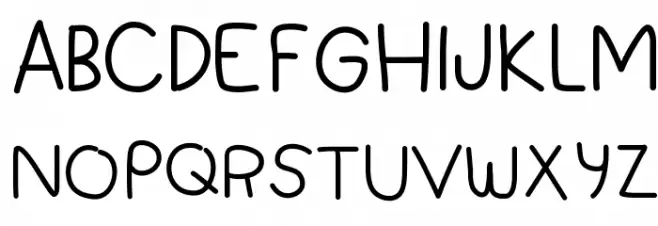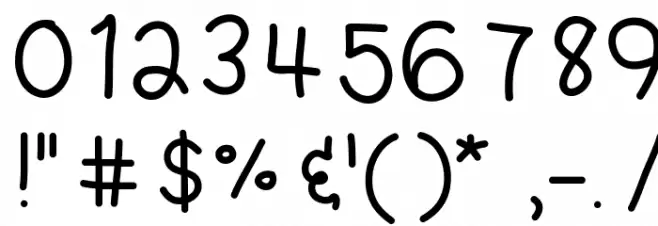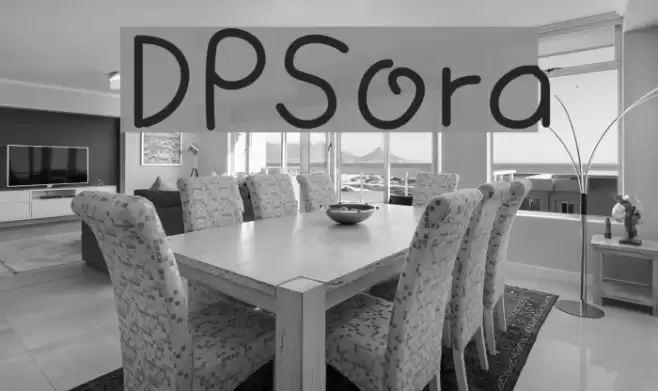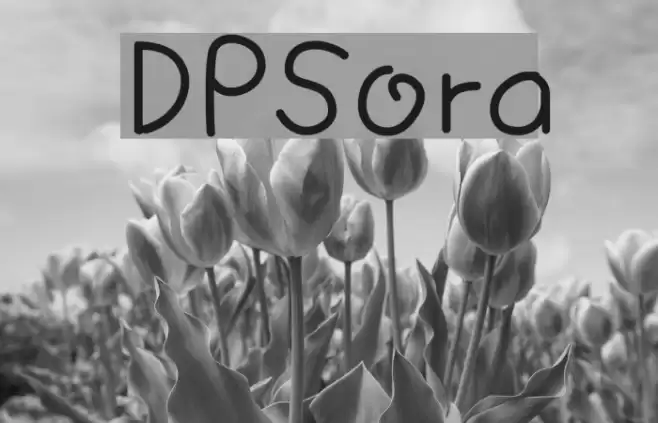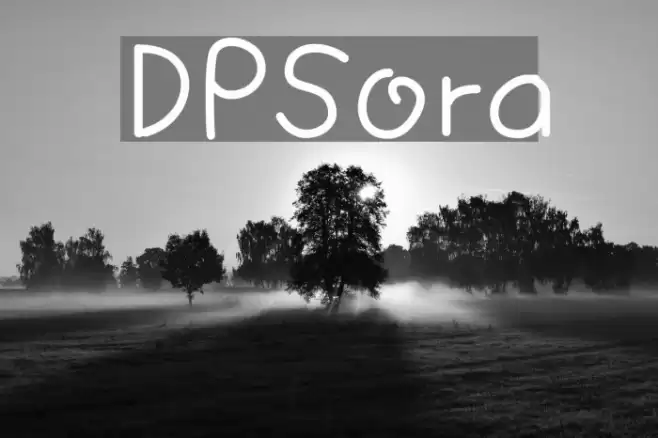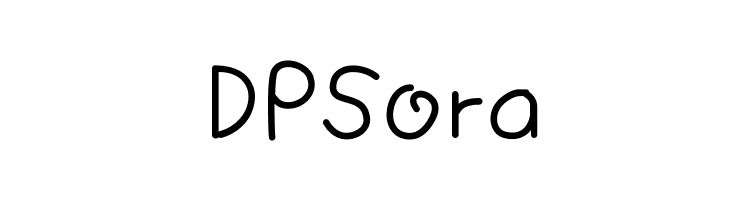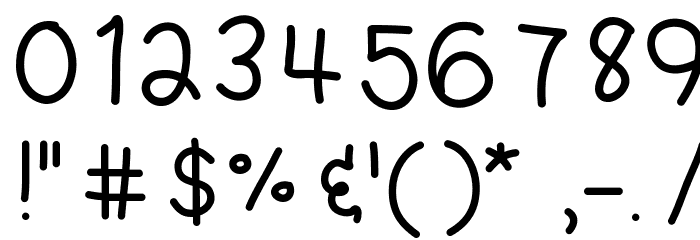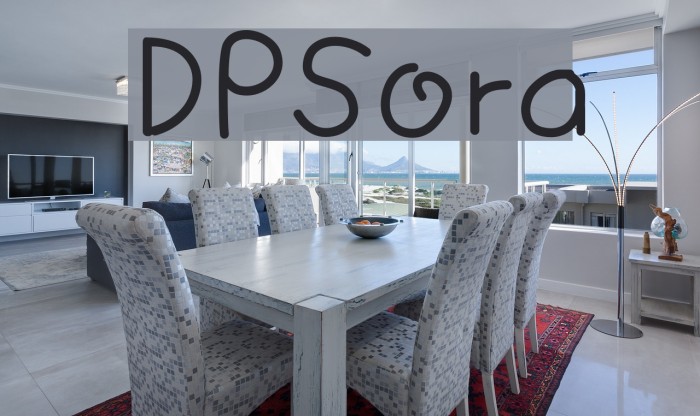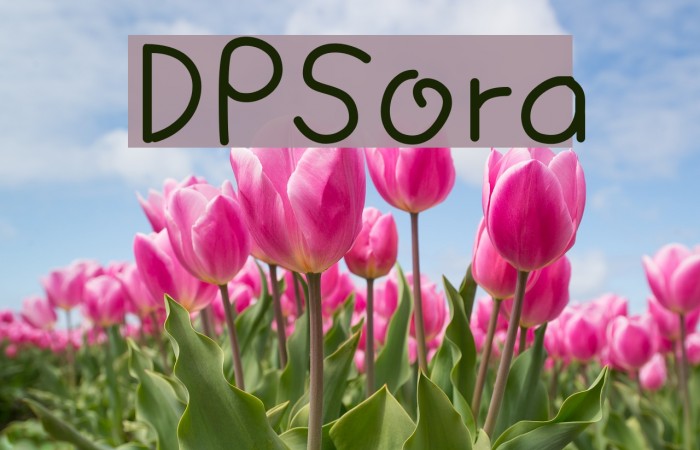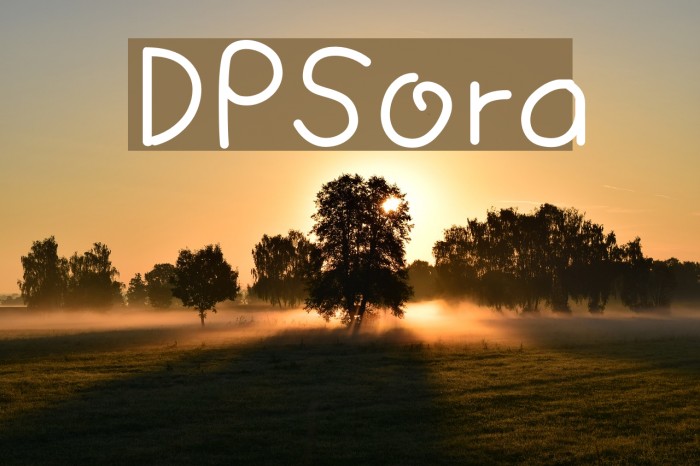
DPSora
This playful and whimsical font features rounded, smooth edges and a handwritten style that exudes a sense of friendliness and approachability. The characters are slightly irregular, adding to the casual and informal feel. The uppercase and lowercase letters maintain a consistent style, with a slight tilt that gives a dynamic and lively appearance. The numbers and special characters follow the same playful design, making the font versatile for various uses. The overall look is modern yet retains a touch of classic handwritten charm.
A playful, handwritten font with rounded edges and a whimsical style.
- Proposed Projects: Ideal for children's books, greeting cards, playful branding, and casual invitations.
- Overall Style: Playful, Casual
- Use Case: Headlines, Informal Text, Branding